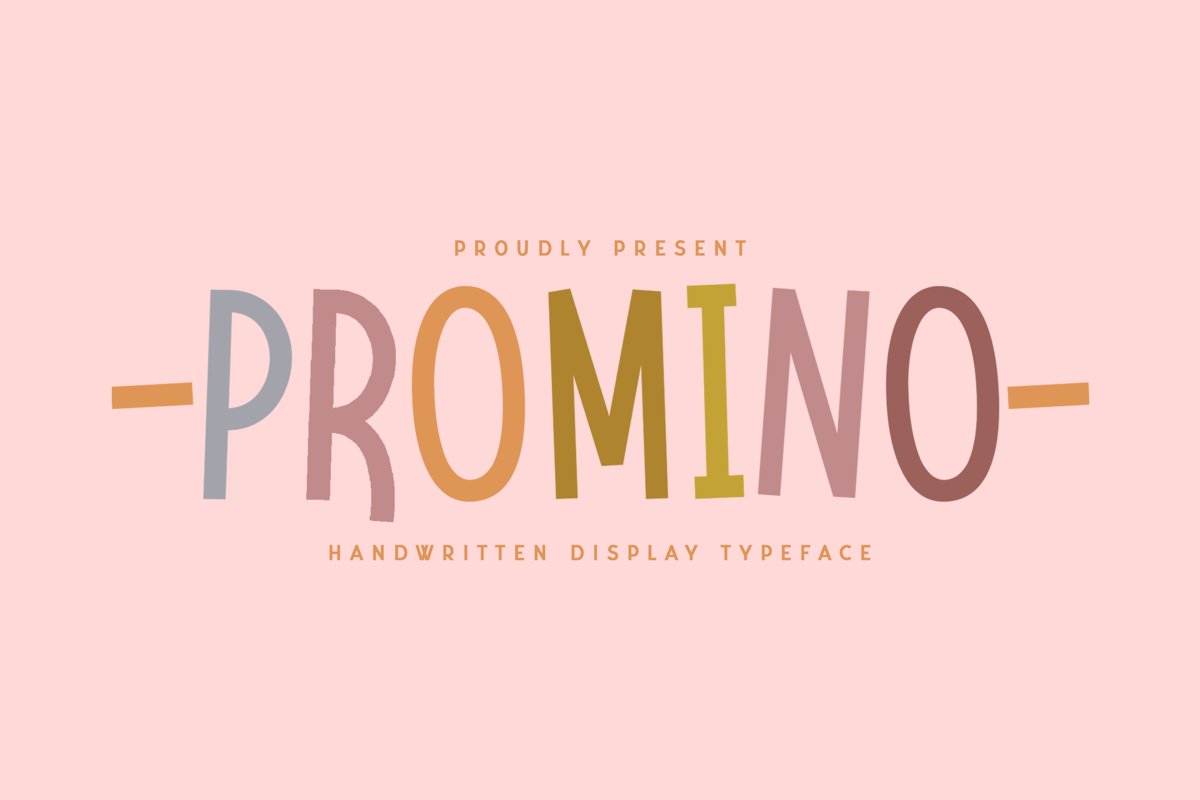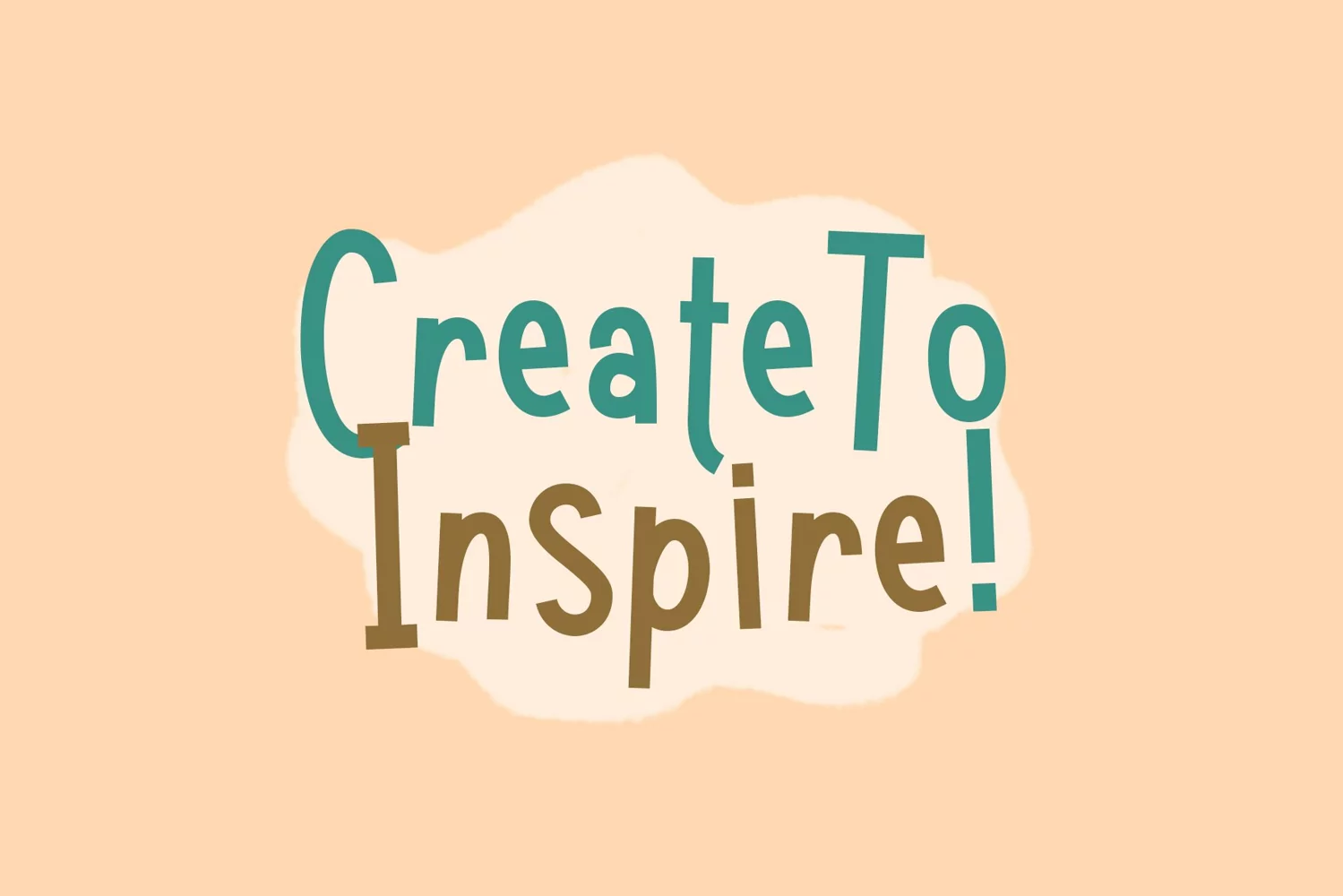
Promino is a display typeface. Perfect for display, mockup, posters, quotes, branding, business card, greeting card, crafting needs, logo, logotype, badges, emblem, header, tittle, merchandise, packaging, and many more.